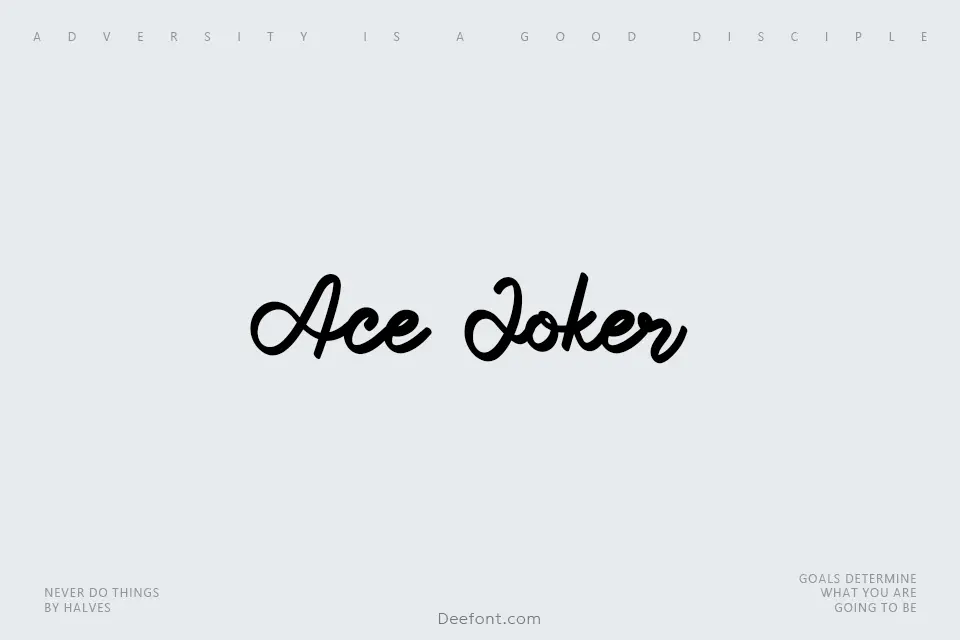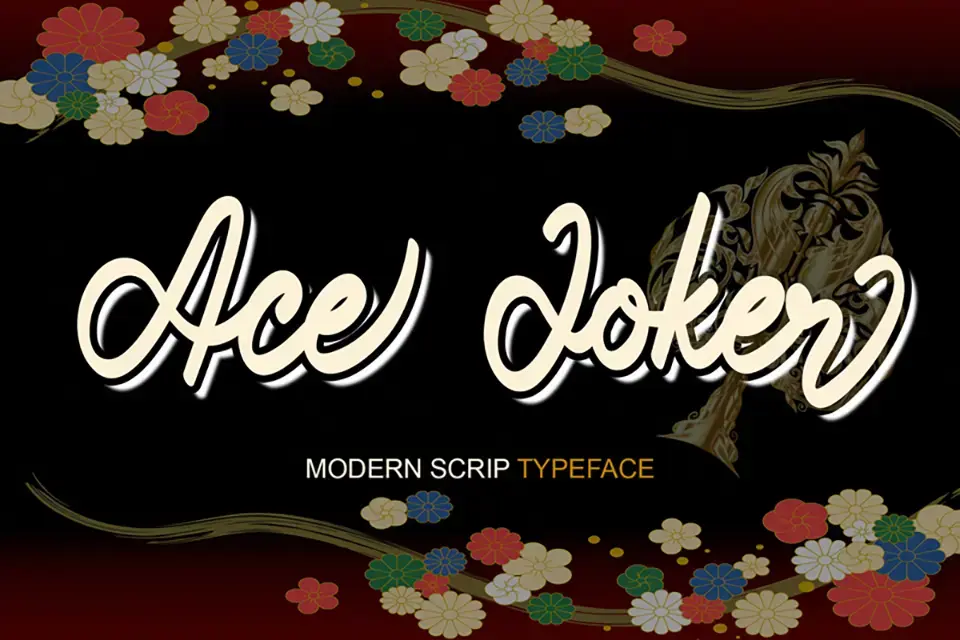
Ace Joker Font
Ace Joker is a sweet and flexible handwritten script font featuring smooth, flowing curves and playful character forms. This display typeface offers 137 glyphs with dynamic strokes and warm personality, making it ideal for posters, title designs, display headlines, party invitations, and creative branding. The font’s distinctive personality combines elegant script elements with casual charm, delivering a unique visual impact perfect for entertainment, gaming, event promotion, and decorative typography applications.